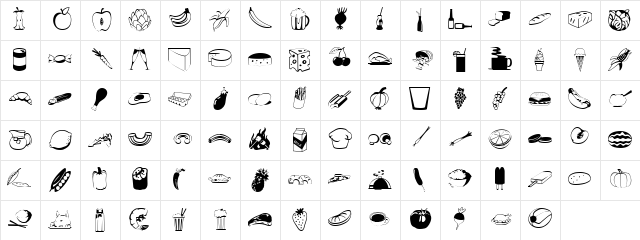
Dos Game Regular
Design Context for Dos Game Typeface
Dos Game is a composed and adaptable typeface that performs quietly and consistently across a wide range of design contexts.
Pro Tip: Use Dos Game in both headline and body roles to test its range before committing to a single application.